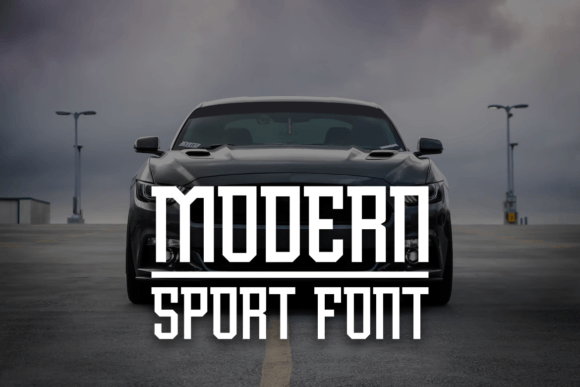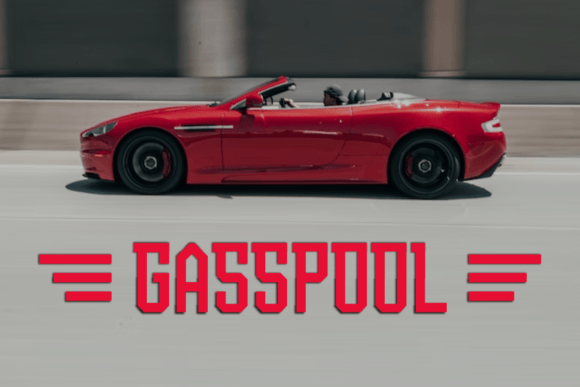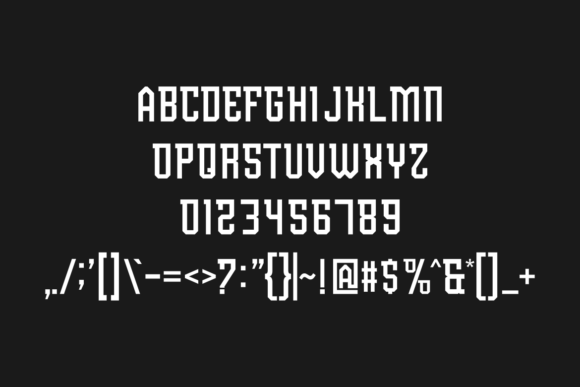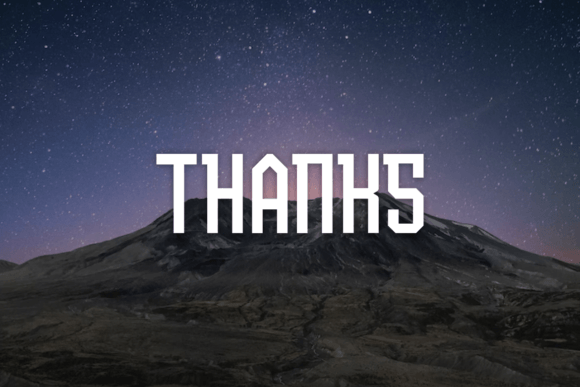
Introduction to Mavam Font Font
Fonts play a crucial role in design, and the Mavam Font font is a typeface that brings both character and versatility to any project. Whether you’re working on a branding project, a website, or a print design, the Mavam Font font offers a unique style that can elevate your work.
Mavam is a bold and strong display font with a powerful, metallic look.
It is perfect for product packaging, headlines, posters, or anything that needs daring typography .
Key Features of Mavam Font Font
Why Choose Mavam Font Font?
The Mavam Font font is more than just a typeface – it’s a design tool that helps you communicate your message with style and clarity. Its unique character set and versatile design make it suitable for a wide range of applications, from elegant invitations to bold headlines.
With its carefully crafted letterforms and balanced proportions, the Mavam Font font ensures readability and visual appeal across all mediums.
What makes Mavam Font font special?
The Mavam Font font stands out with its unique design, exceptional readability, and versatility across various design applications.